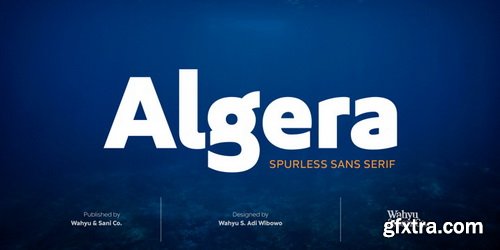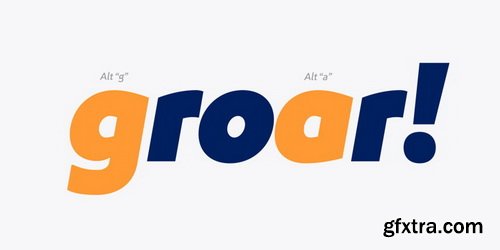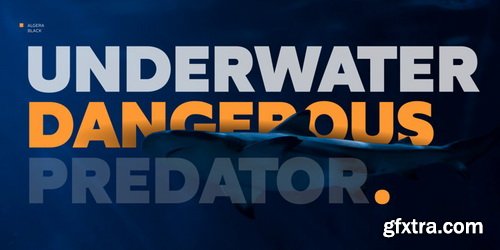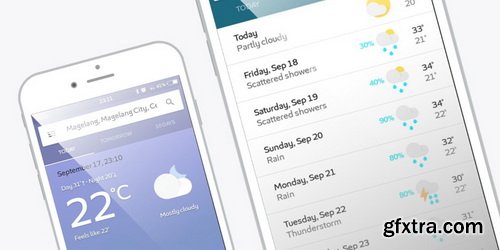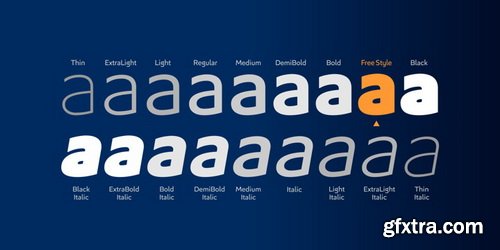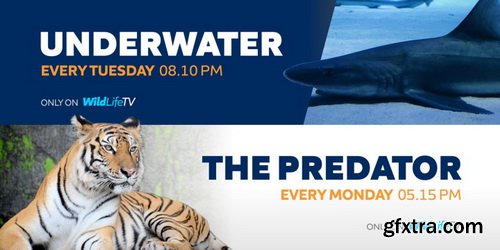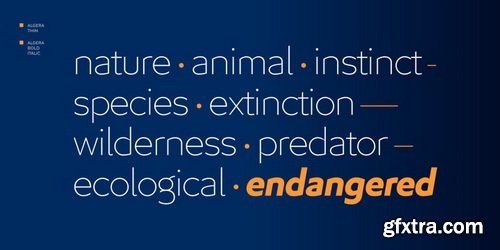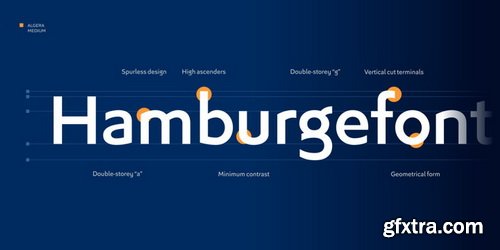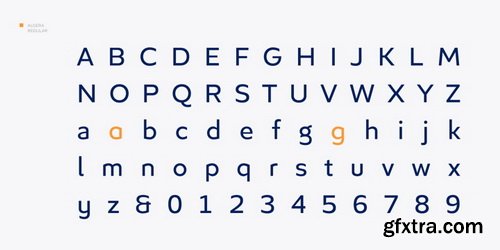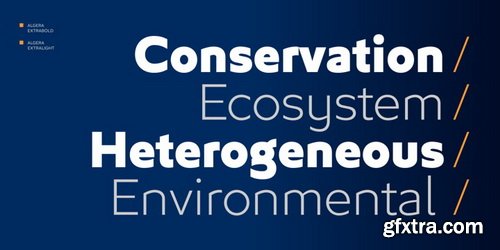
Algera Font Family
Algera will give you a different touch to your creative projects. This typeface will be a great choice for logos, posters, presentations, headlines, lettering, branding, quotes, titles, magazines, headings, web banners, mobile applications, art quotes, advertising, packaging design, book title, and more!